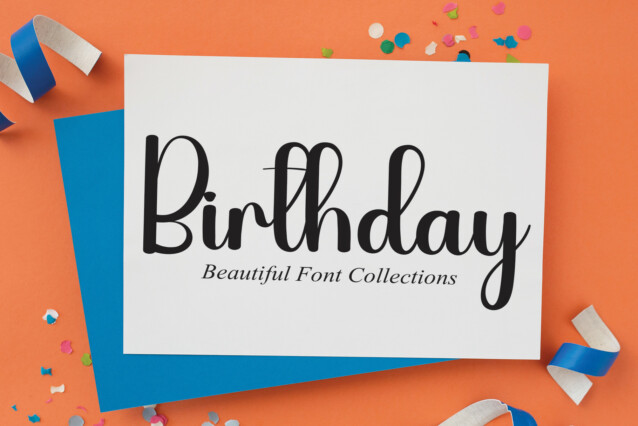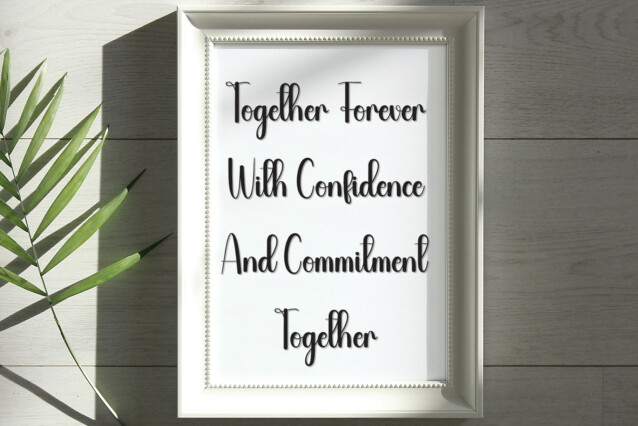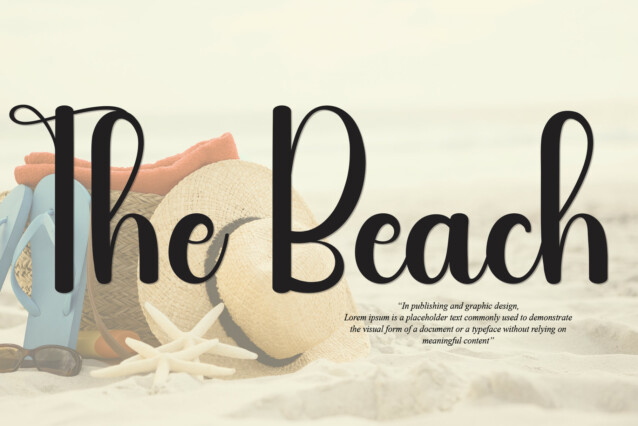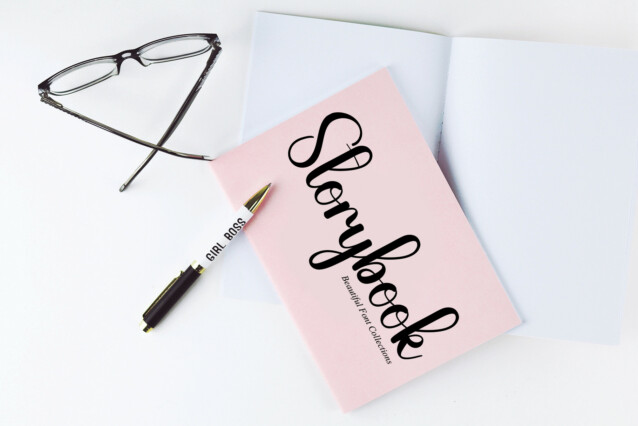
Lightrays Script Font
Lightrays Script Font is a romantic and sweet calligraphy typeface with characters that dance along the baseline. It will add a luxury spark to any design project that you wish to create!